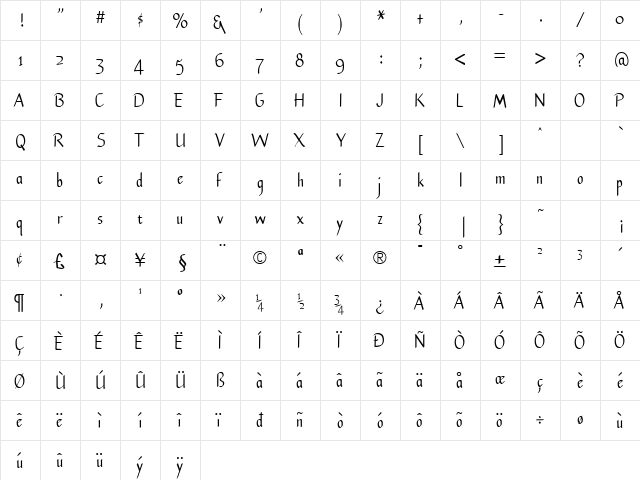
Balboat Plain
Design Context for Balboat Typeface
Balboat is a composed and adaptable typeface that performs quietly and consistently across a wide range of design contexts.